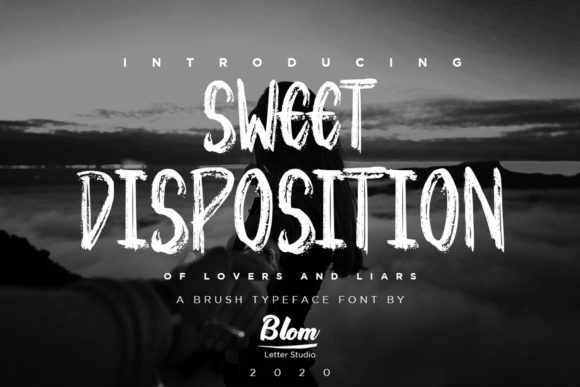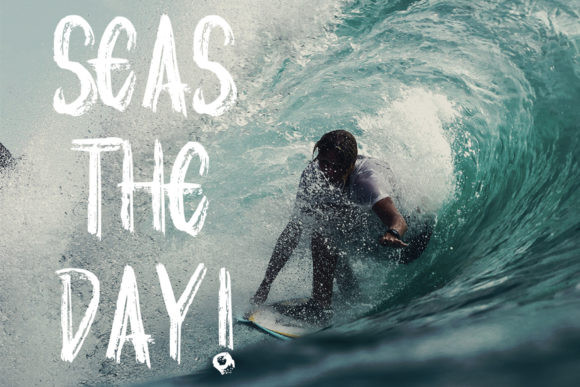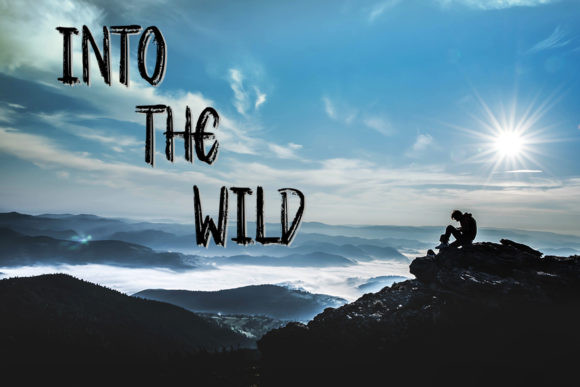
Sweet Disposition Font
Sweet Disposition is a casual display font, created by using a brush pen. Clean and a little bit quirky, this font is the perfect fit for all of your logos, branding, social media, and crafty DIY projects.